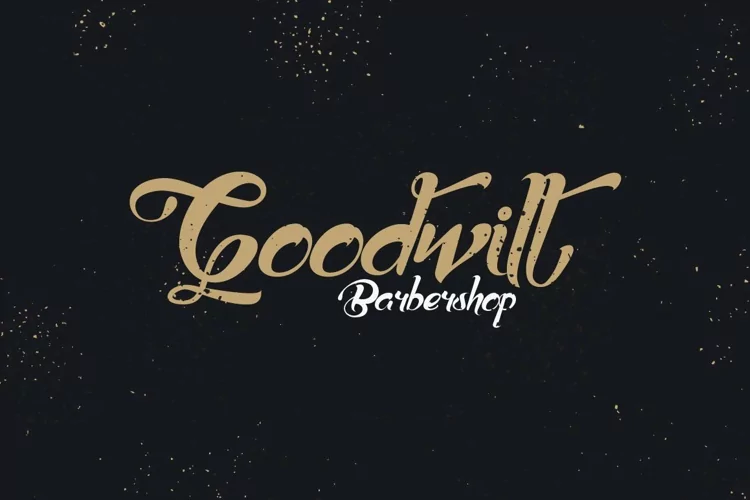
The Barista Font
Introducing The Barista Font. Featuring unique beautiful curves and a modern feel. Inspired by old records and vintage typography. with beautiful ligatures, tons of special alternative glyphs, ornament and multilingual support. It’s a very versatile font that works great in large and small sizes. The Barista Font has a beautiful range of stylistic alternates with unique characters making it a versatile powerhouse for logos, headlines, posters, shirts, you name it!
The Barista is also included full set of:
- Uppercase and Lowercase letters
- Special Ligatures
- Stylistic Alternates
- Numerals & Punctuation
- Accented characters